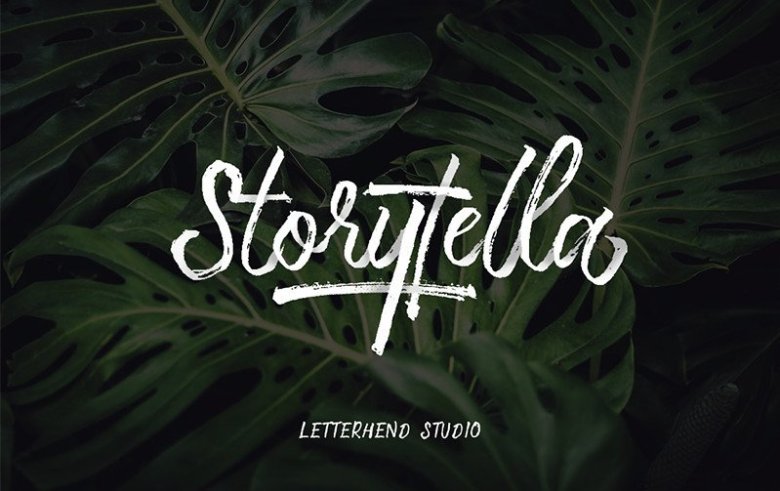
Storytella Brush Font
Start your day with a unique brush type. It’s handwritten script. This font is ideal for branding and decorate your any project. Introducing Storytella Brush Font. Storytella designed by Letterhend and shared by Pixelo. It’s come with a lot of alternate characters and swashes. This font are perfect for wedding invitation or your blog. Also with their help, you can create a logo or beautiful frame for your home. Or just use for your small business, book covers, stationery, marketing, magazines and more.